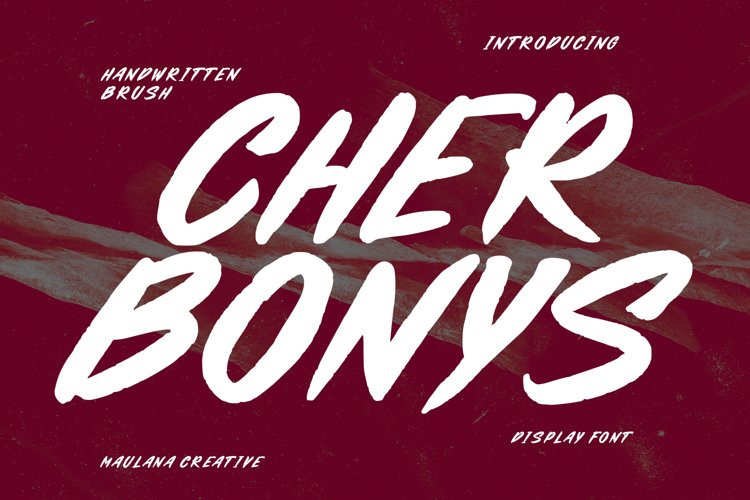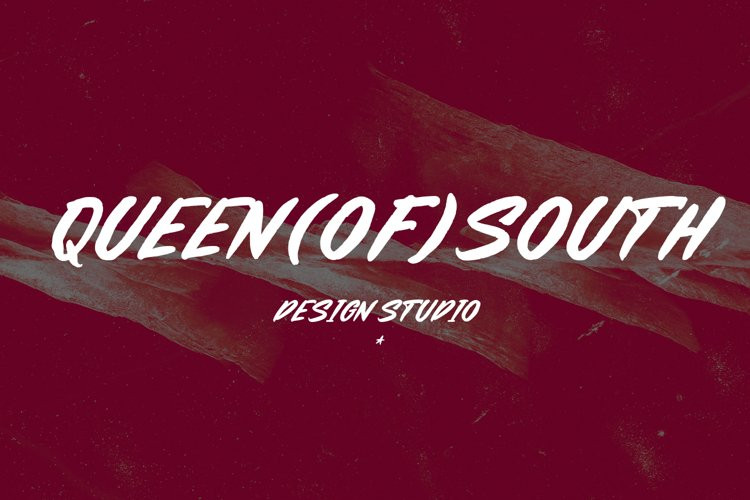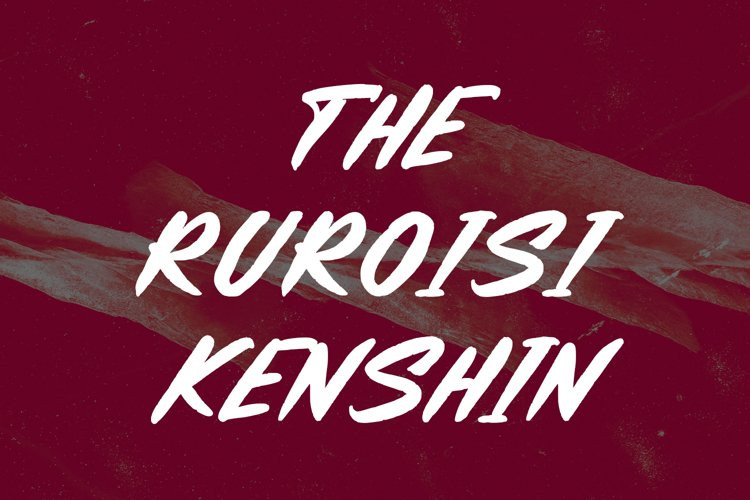
Cherbonys Font
Cherbonys FontCherbonys is a handwritten brush slanted font. With rough brush stroke, fun character with a bit of ligatures and alternates. To give you an extra creative work. Cherbonys font support multilingual more than 100+ language. This font is good for logo design, Social media, Movie Titles, Books Titles, a short text even a long text letter and good for your secondary text font with sans or serif. Make a stunning work with Cherbonys font.